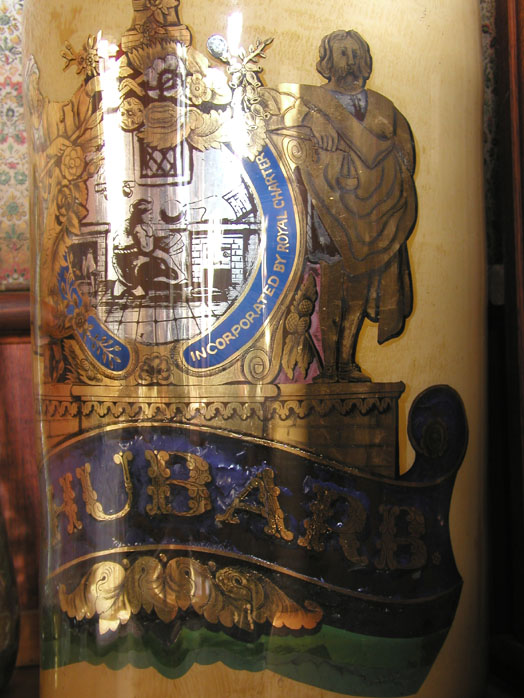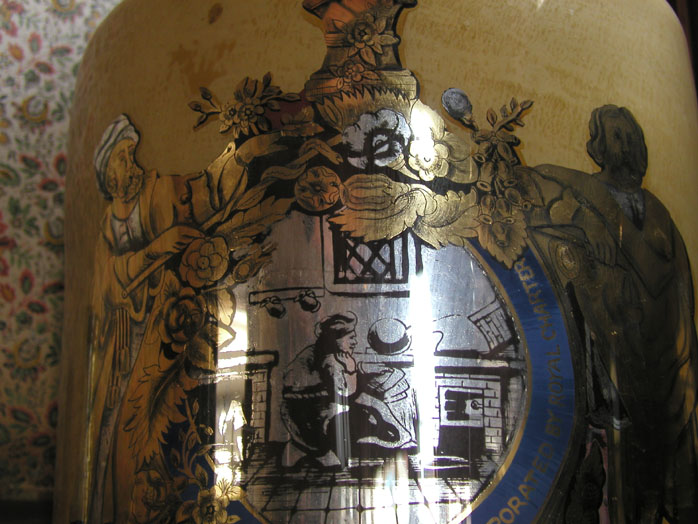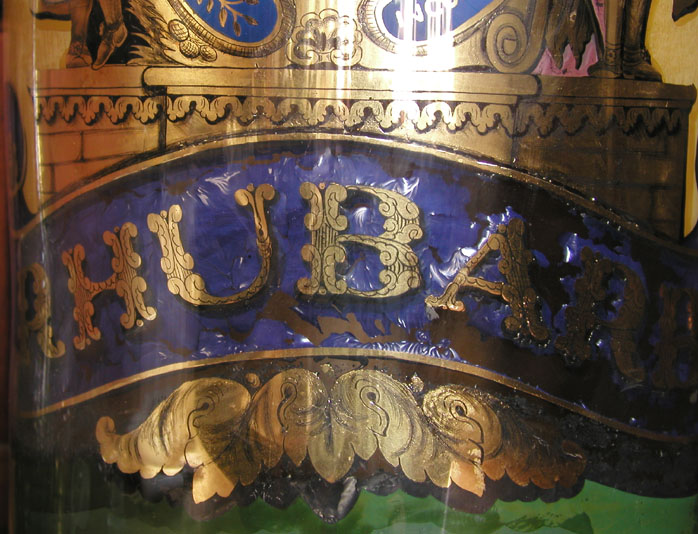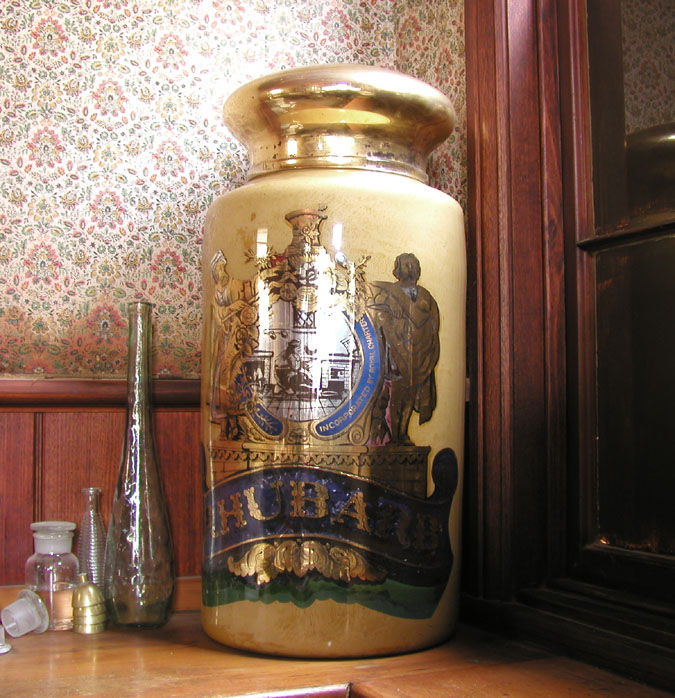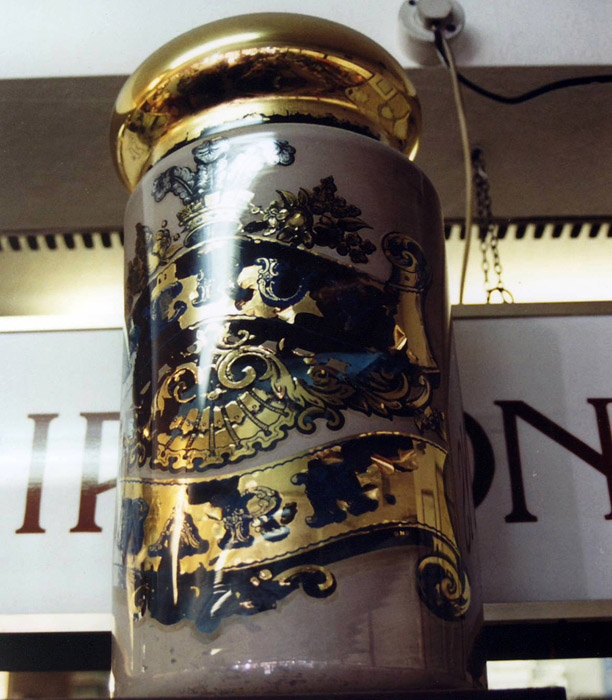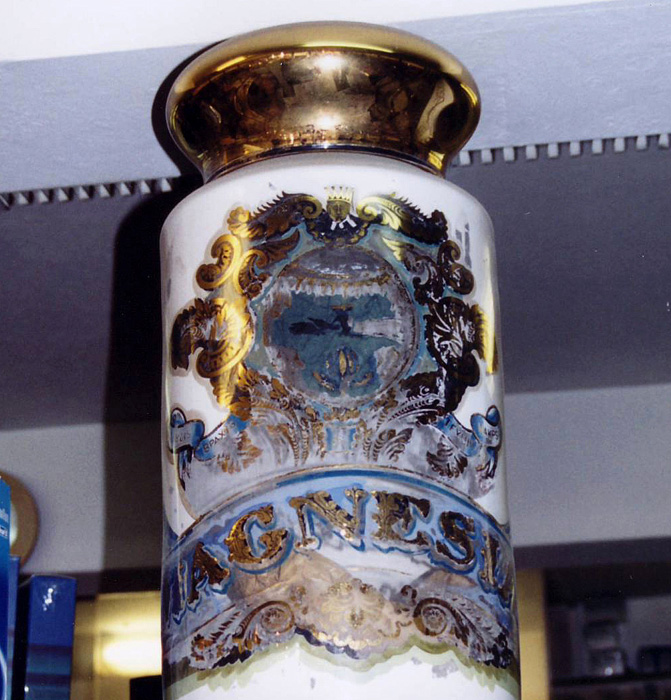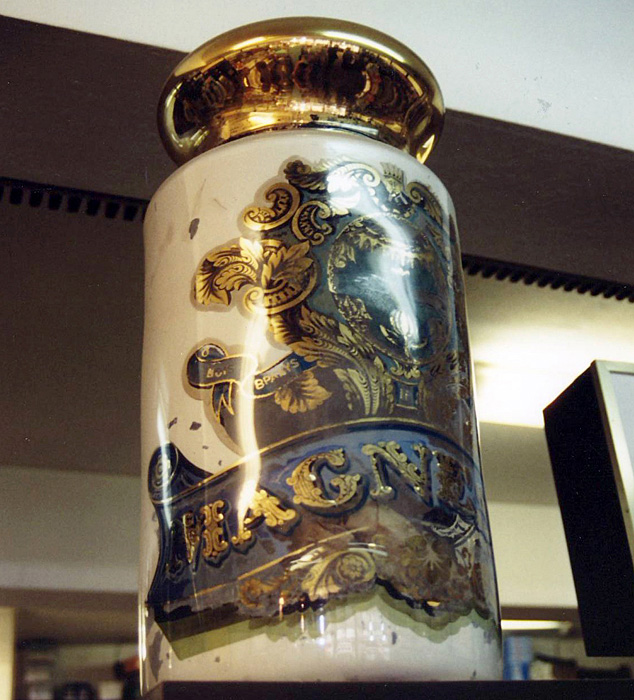
For several years, I have photographed every example of verre églomisé (glass gilding) that I find. It think you guys would like to look at them so I decided to post some pictures from my photo archive. I have in mind to post a new one on a regular basis. I'm not sure how frequently to do this, but we'll see how it goes. I'm thinking at this stage of perhaps a new one every week or two.
This first one is an old apothercary (chemist/druggist) jar. It was on display at Sovereign Hill in Ballarat (Victoria, Australia). Ballarat was formed with the 19th century gold-mining boom. It became the site for the first act of organized democratic rebellion with the Eureka stockade, protesting for universal sufferage (voting rights and representation in Government) and also against the oppresive cost of mining permits in 1851. So it can claim to be the birthplace of Australian democratic government. Sovereign Hill is a tourist destination based on the mining history of the area.
I took these shots several years ago. The jar is not in an atmosphere-controlled room, so it is probably gradually deteriorating. I think it really deserves museum-quality environment and care. It's a very unusual piece, and extraordinary when you realize, all the work was done by a very tiny little signwriter who could fit inside the jar!
Bruce,
I am so happy that you are back at it on the forum!
It would be great to have the South represented for it's beauty and show us all that there is a lot of beautyfull things being made in their short history as a nation.
Ofcourse we all know that the aborigional culture is probably the oldest in the world, but i do not recall ever heard of them using gold in their art.
About this piece, besides that it is a fingerlicking object, are you srious that it is made from the inside and not the outside?!!!
Just can not belive someone having the patience and skills to make this from the inside.
Maybe you have some Oompa Loopma's running around your dessert who did the work and this would be a chocolate jar.
If you want to learn something about an other very old style in reverse glass painting and gilding read my latest post: Reverse glassart symposium.
yes, it's done on the inside. someone did all this work with their arm inside the jar.
When you think about how that must feel....imagine laying the gold leaf like this! doing all that engraving and forming letters without being able to get directly behind the work....and all this to sell some Rhubarb!
The artistic heritage of Australia closely follows Britain. We were a British colony and at the height of the Victorian era, Australia, and particularly Melbourne, where I am based, was a shining beacon of optimism and possibility in the "new world". So naturally, some of the great examples of everything Victorian can be found here.
As for Aboriginal influences....they didn't use gold...they didn't have glass...they didn't smelt metals because they didn't have forced-air, super-hot fires. In fact, being so far removed from other continents, they had one of the least technologically developed cultures in the world. They did have art, cultural complexity, trade with neighbours and a deep understanding of nature and the land, but almost no tool-working beyond natural materials.
These looked to be nowhere near the quality of the examples you have shared, but thought you might like to see them anyway.
The pictures were taken in May of '03 in Kilkenny at Whites Pharmacy, the owner was very proud of the jars, even in their deteriorated state & was generous enough to let me photograph them.
Another type of advertising art I have rarely seen in the US.